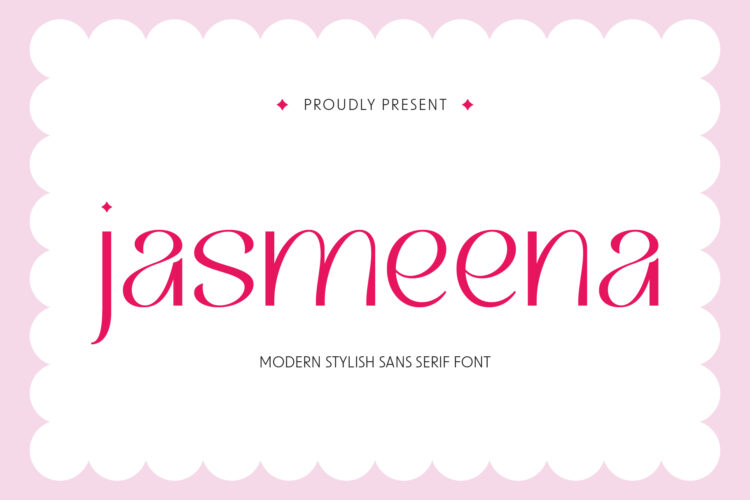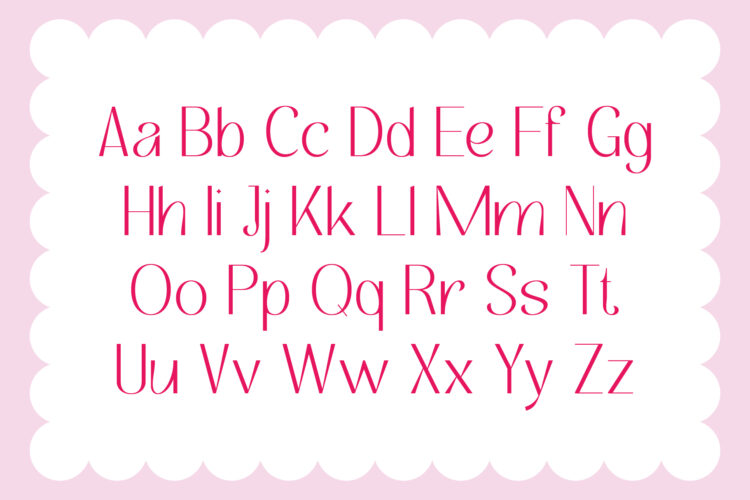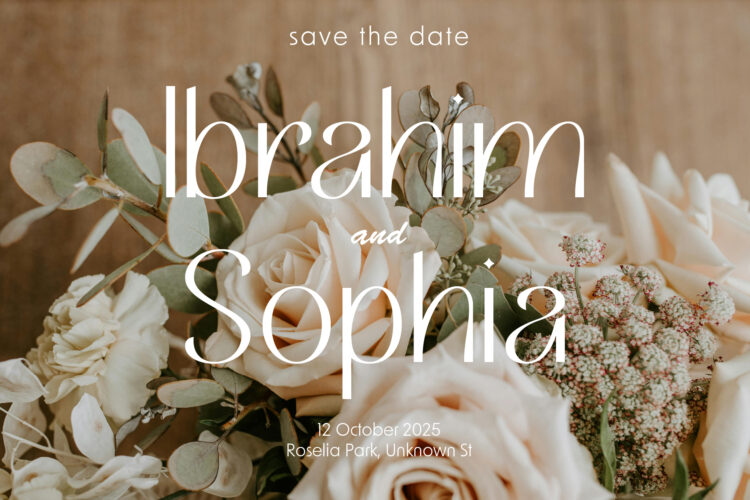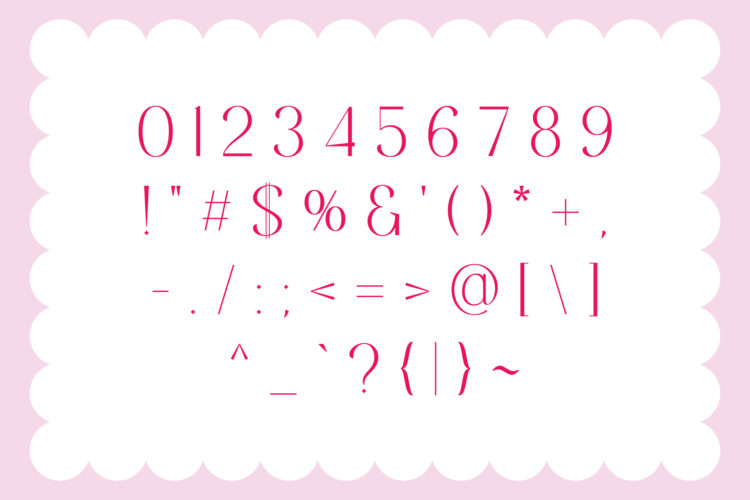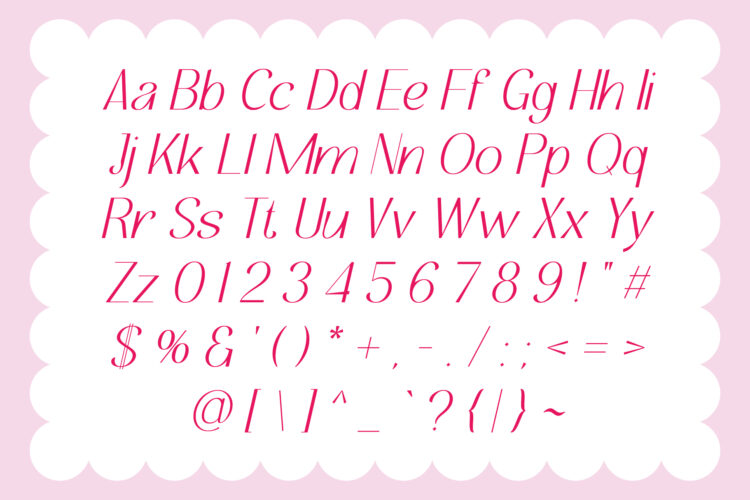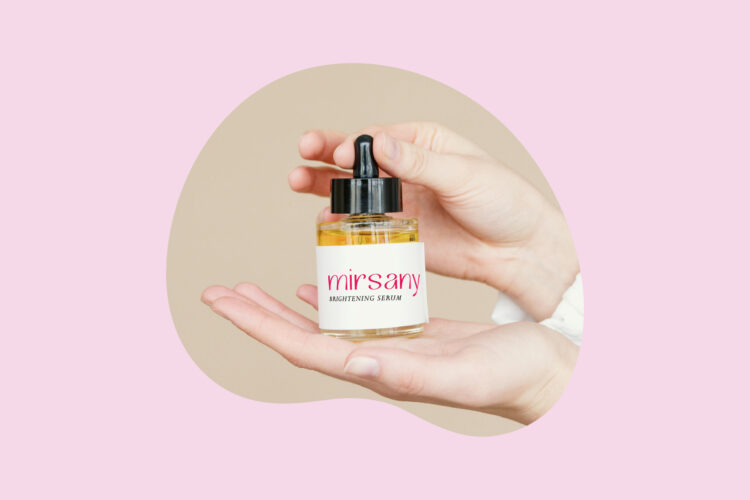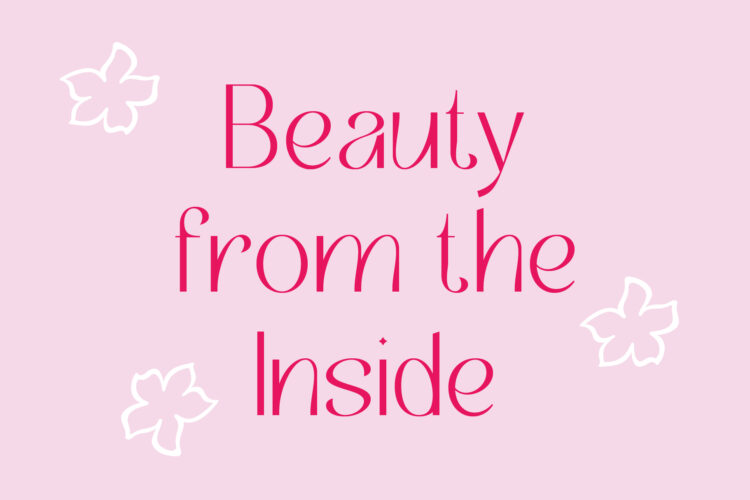
Jasmeena - Regular
Jasmeena - Italic
Jasmeena is a clean sans serif font with a modern, elegant feel. Its minimalist style brings a soft, feminine touch to any design.
You can use it for wedding invitations, beauty product packaging, jewelry catalogs, or fashion layouts. In each case, Jasmeena helps your design look polished and refined.
Moreover, the font includes uppercase and lowercase letters, numbers, and basic punctuation. As a result, you have all the tools needed for both personal and professional projects.
Jasmeena – Elegant Font